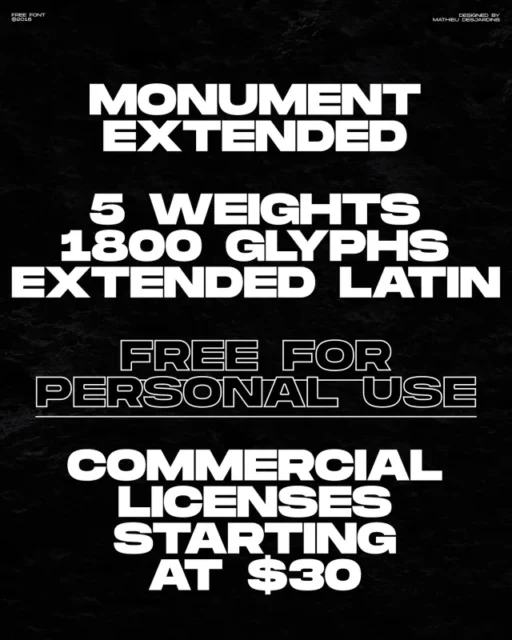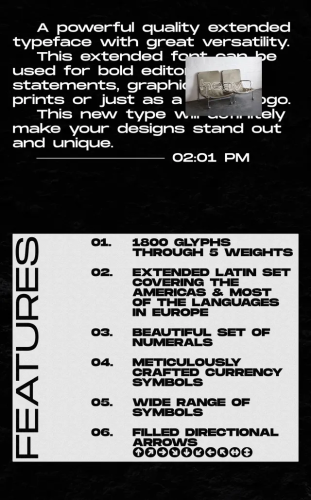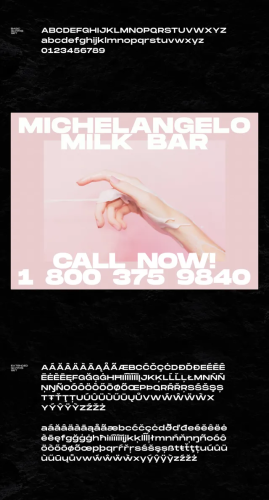
Monument Extended Font Family
Monument Extended is a bold and versatile typeface built for making strong visual statements. With its wide proportions and modern style, it works beautifully in editorial layouts, impactful posters, and sleek logo designs. This font family brings power and uniqueness to any creative project.
Designer: Mathieu Desjardins
Monument Extended Font Family is a Sans Serif Fonts font that brings a professional and versatile look to your projects. Monument Extended is a bold and versatile typeface built for making strong visual statements.